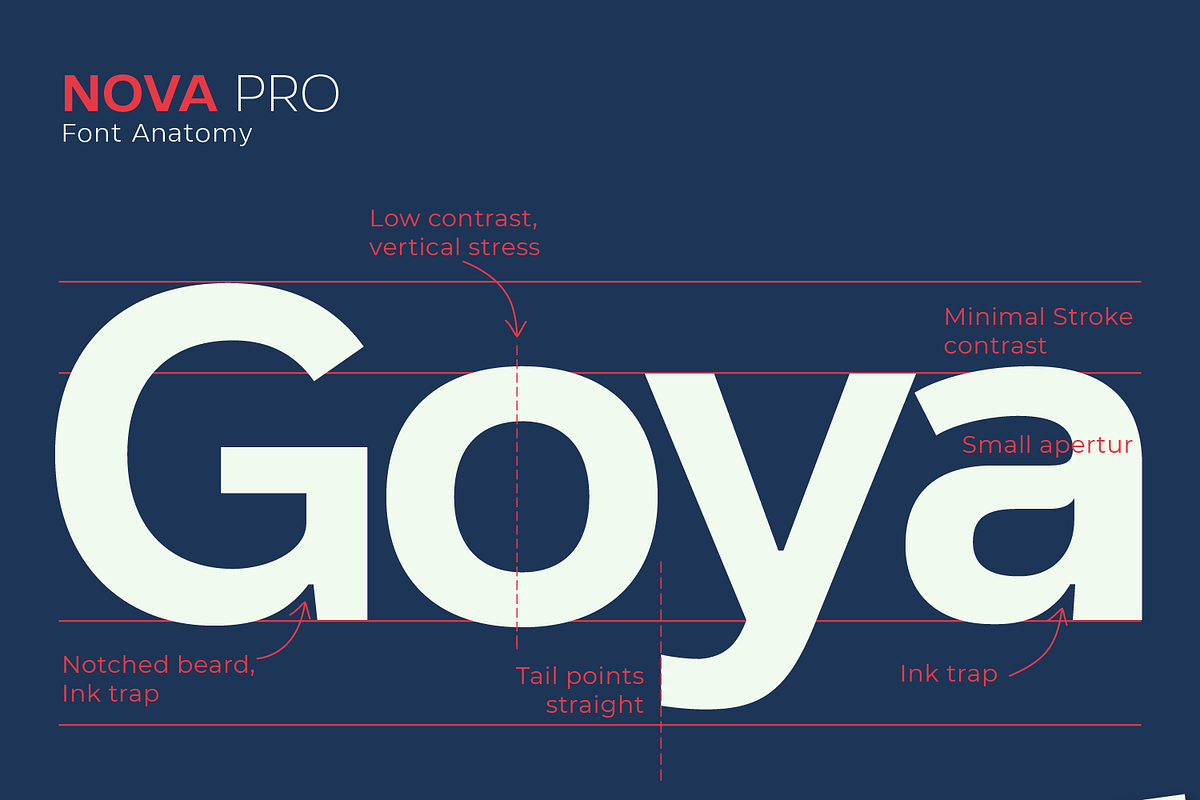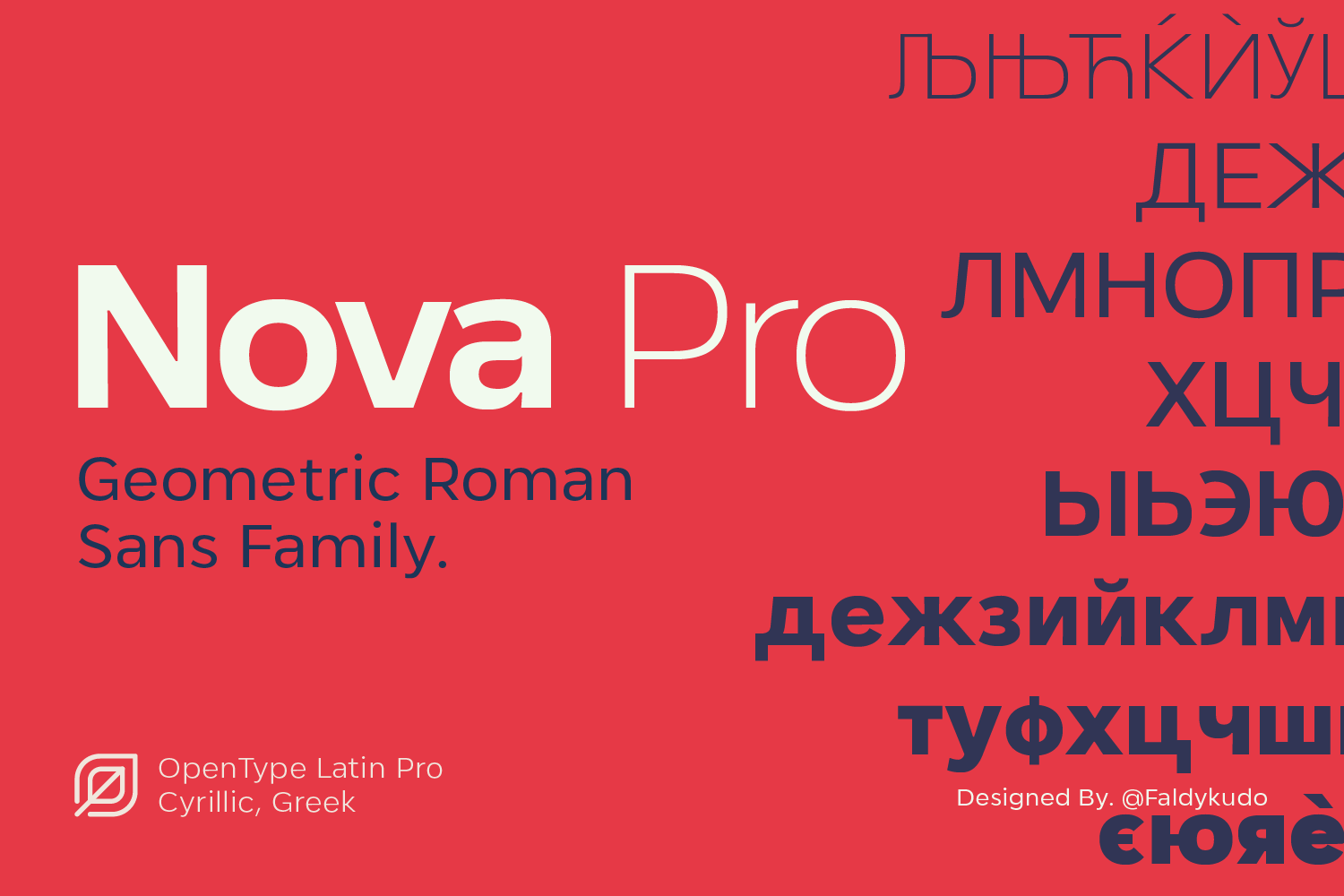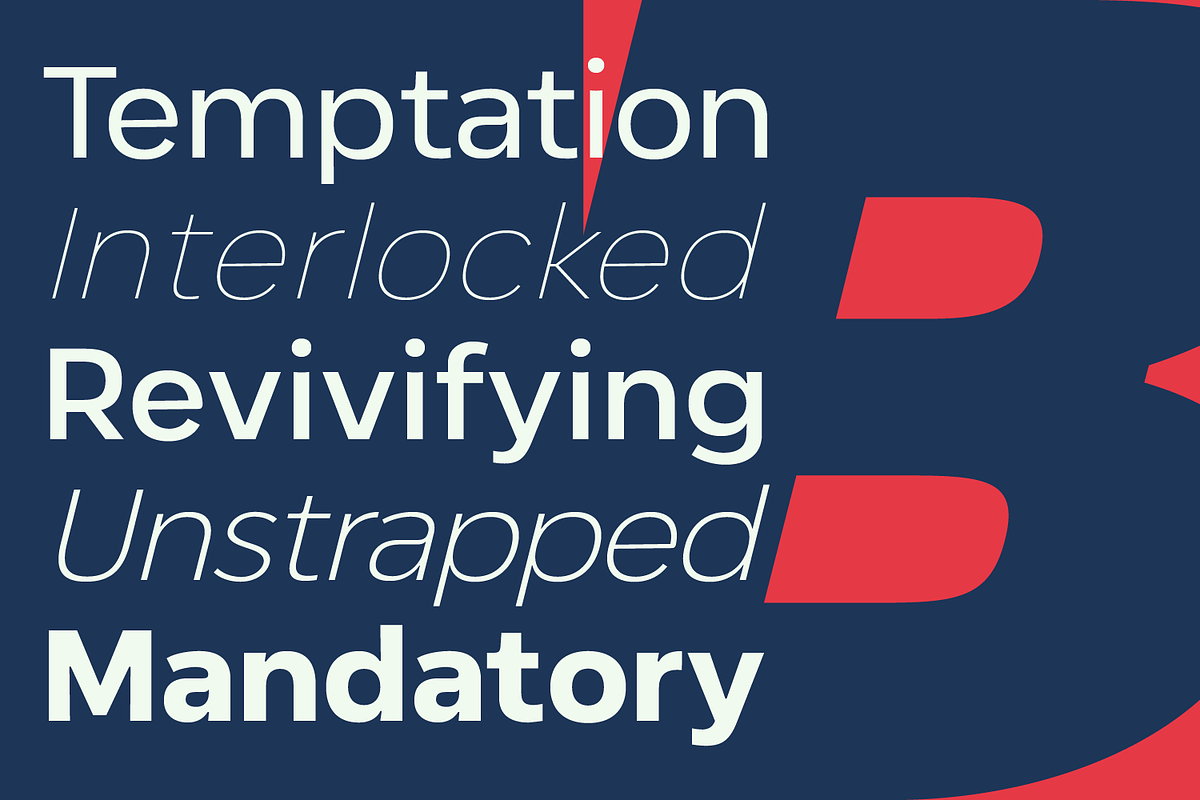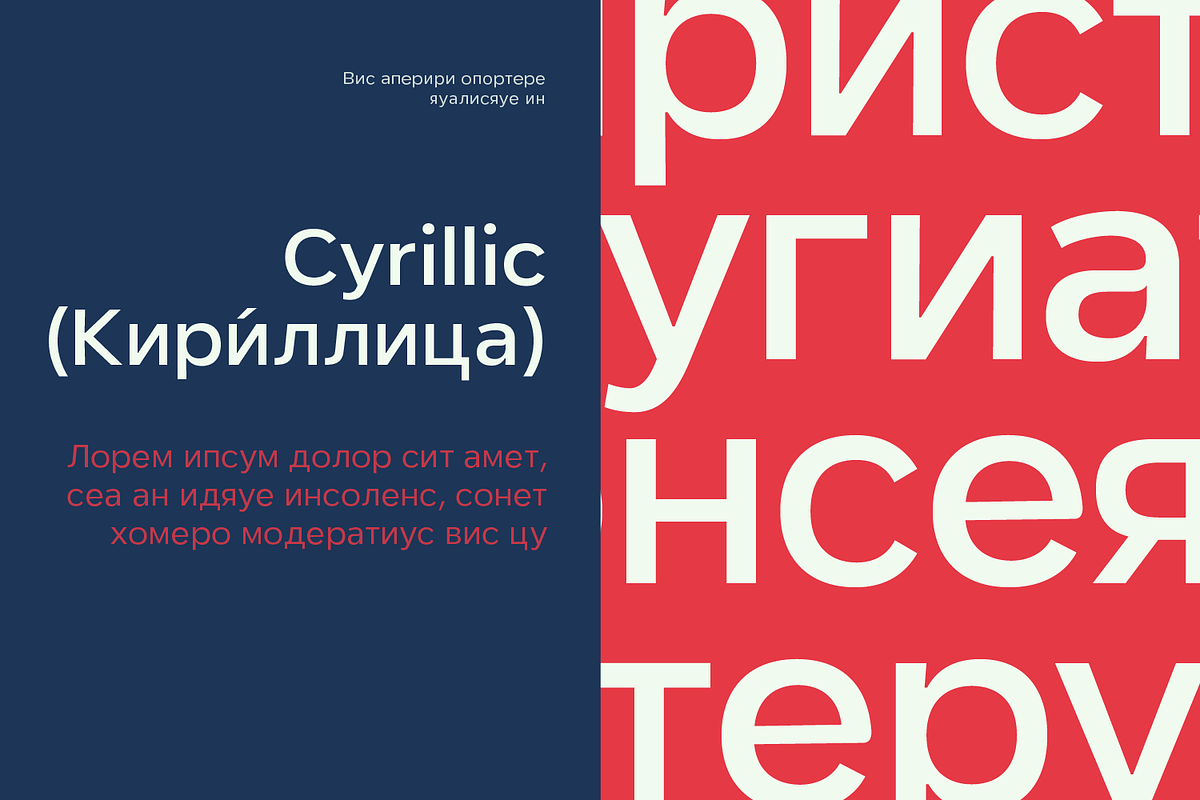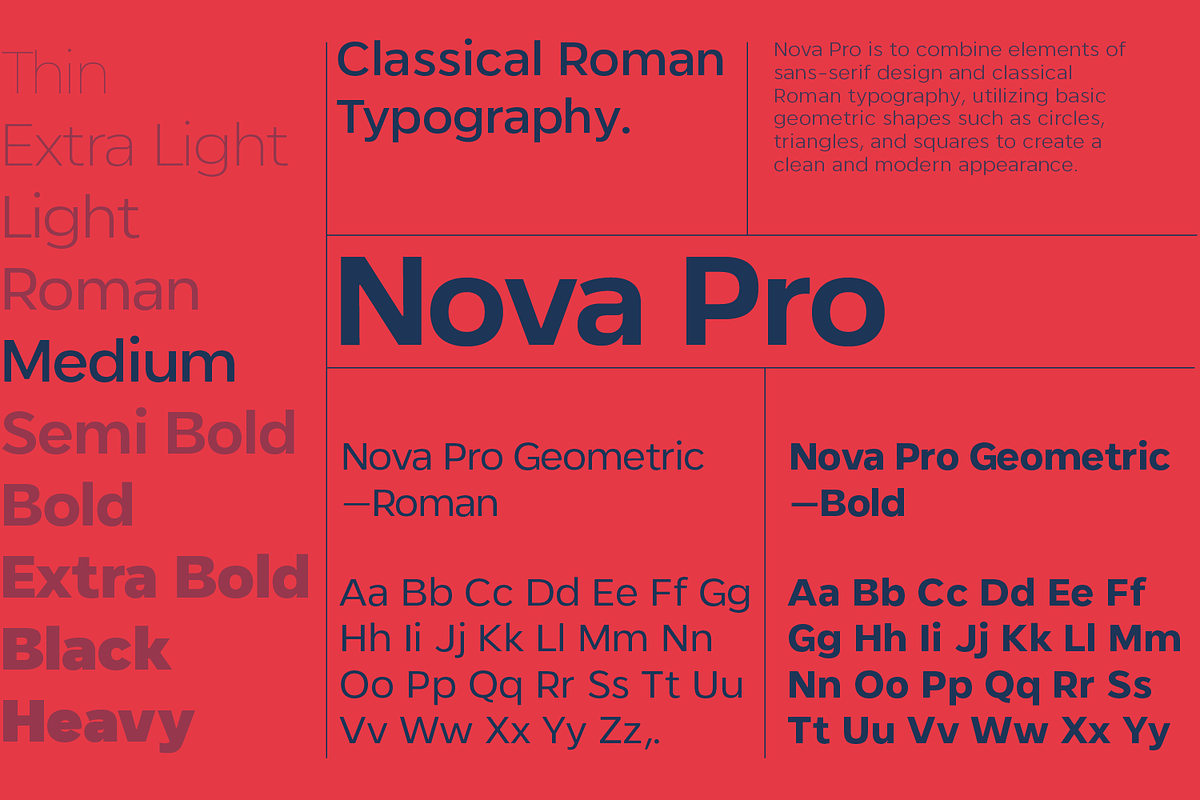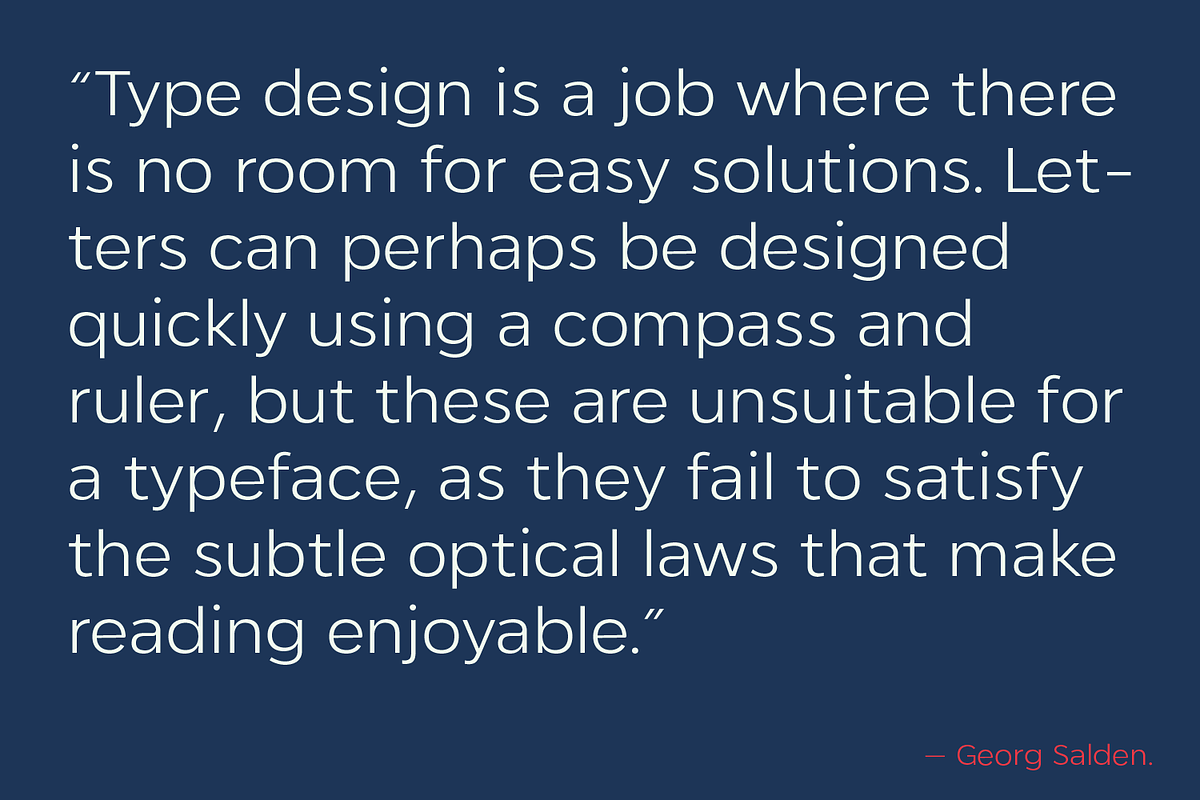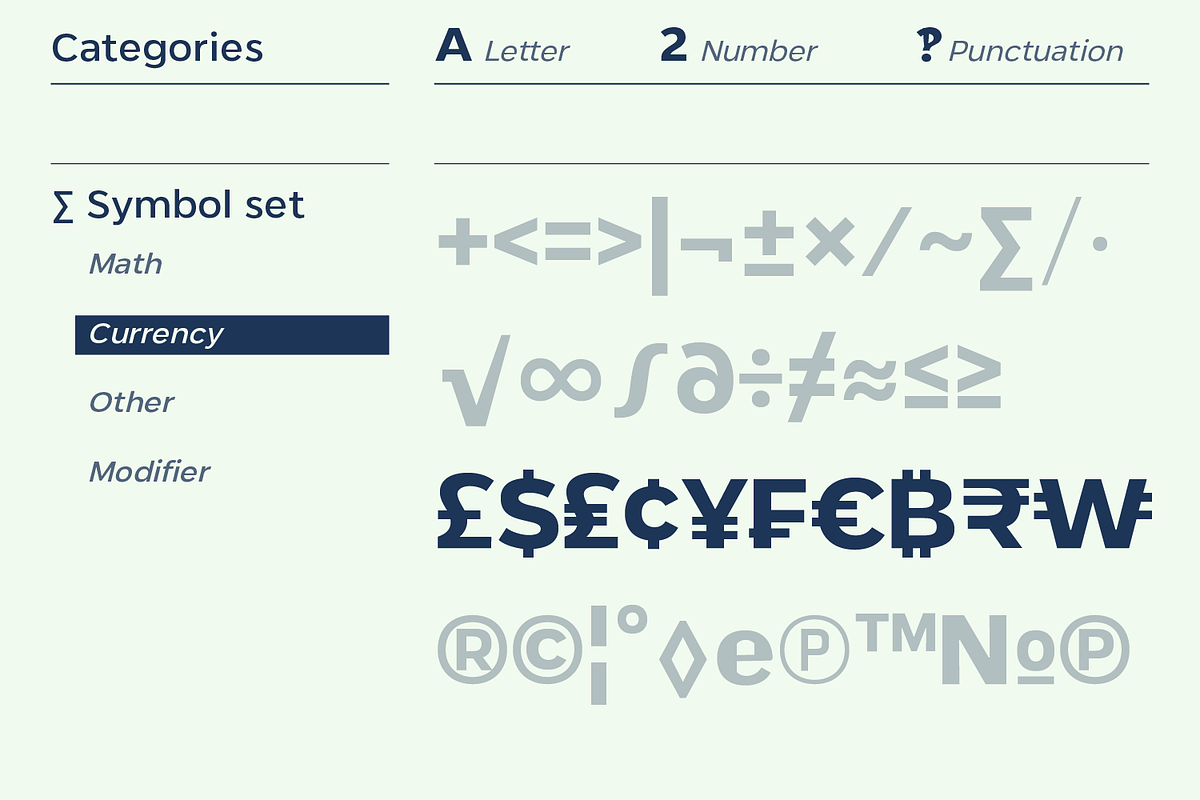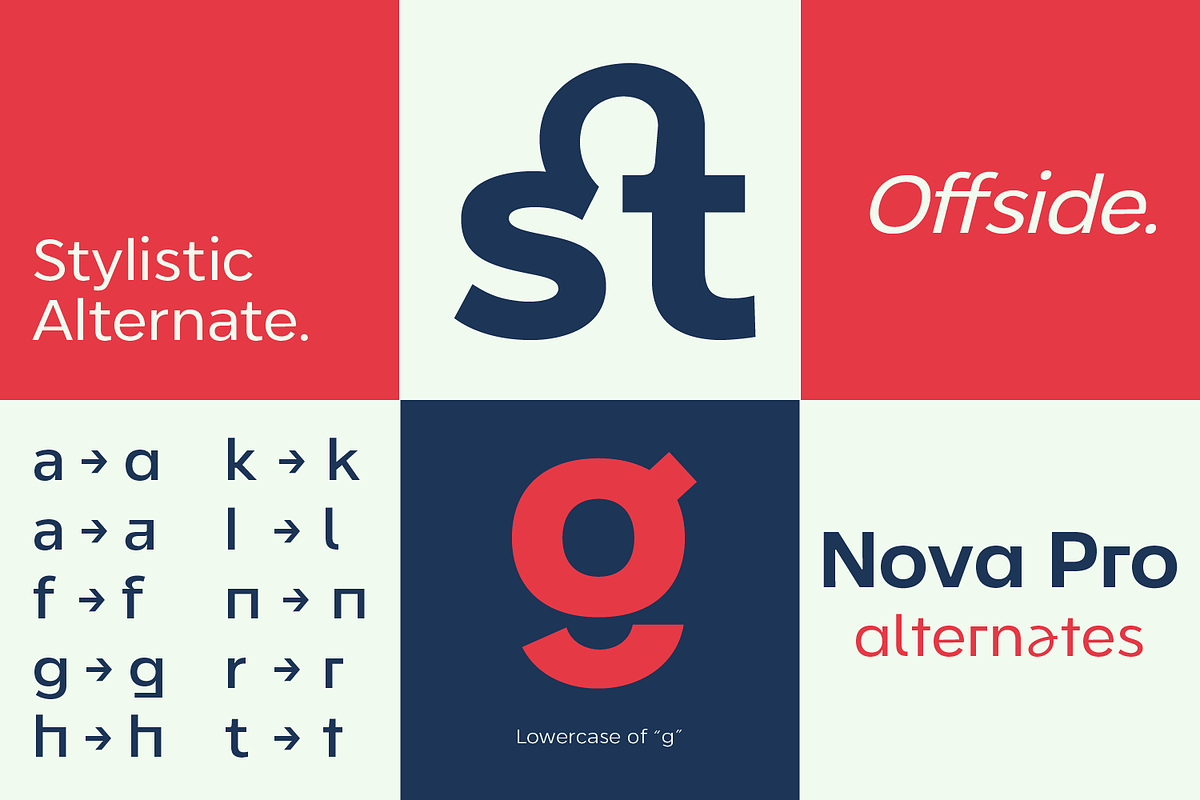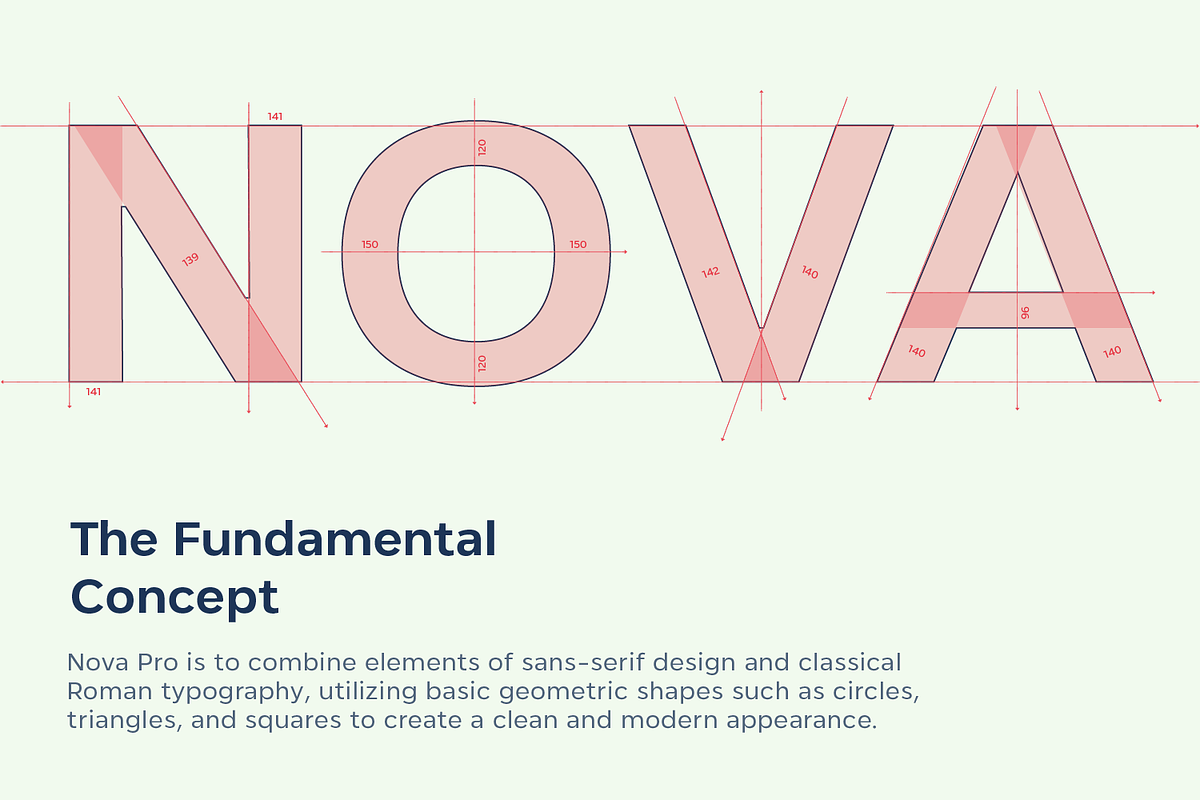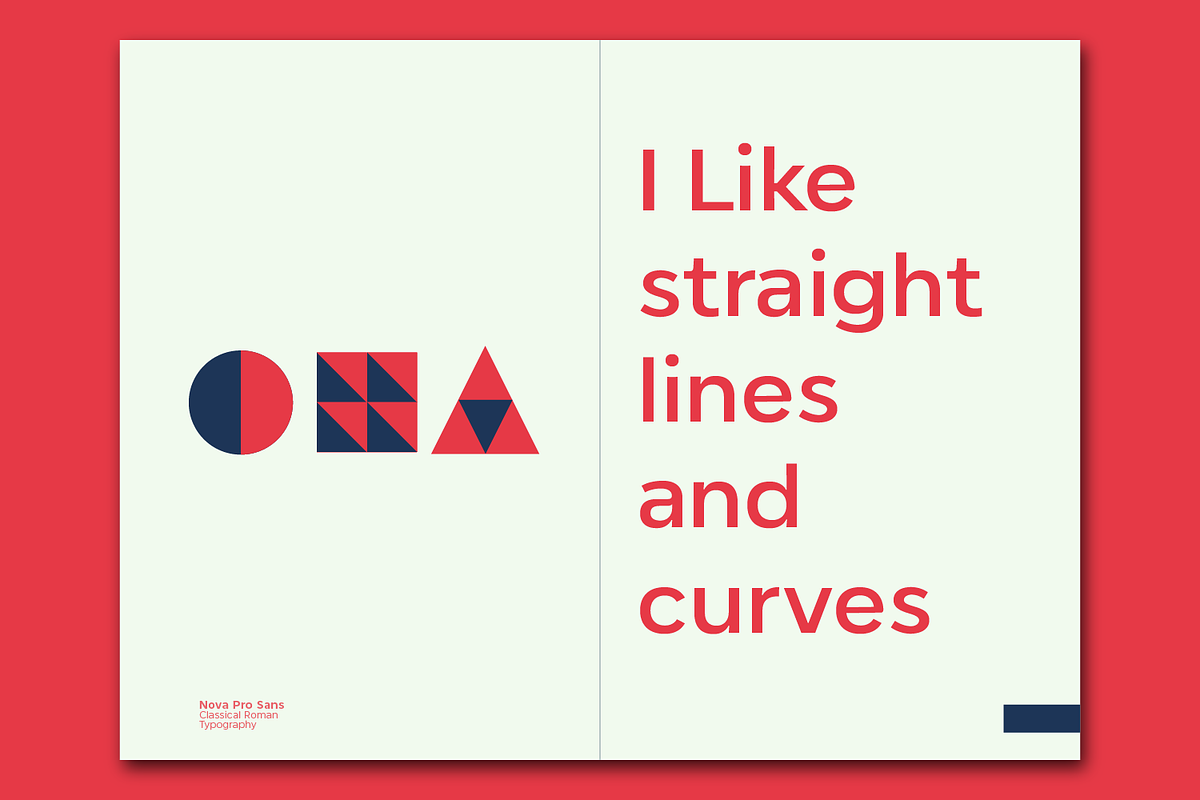
Nova Pro-Modern Sans Serif Font
Nova Pro is a clean and modern sans-serif type family built on simple geometric foundations, refined with subtle classical Roman influence. Designed for clarity and balance, it delivers a professional and timeless tone that works beautifully across branding, editorial layouts, packaging, and digital interfaces.
This Nova Pro Lite package includes 3 essential weights with matching true italics, giving you a complete core system for everyday design work. Its stable proportions and high legibility make it reliable for both headlines and body text, while the italics add expressive flexibility for emphasis, quotes, and brand messaging.
Nova Pro also includes lowercase alternates and standard ligatures, allowing cleaner and more polished typography.
Clean geometric construction
True matching italics
Lowercase alternates
Standard ligatures
High legibility for print & digital